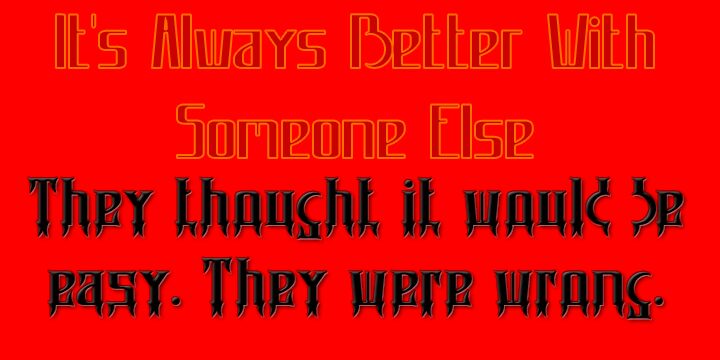
Sigil by Typesgal is a free Gothic display font with stark, high-contrast construction and an unusually severe silhouette. Broad rectangular arches meet hairline strokes, hooked feet, and sharp flared details that recall ornamental blackletter without copying its dense texture.
Designers working in dark music and alternative fashion will find it suited to album covers and clothing graphics. It can lend theatrical force to horror posters and game title screens. The pointed details connect these uses to occult, medieval, and gothic subject matter.